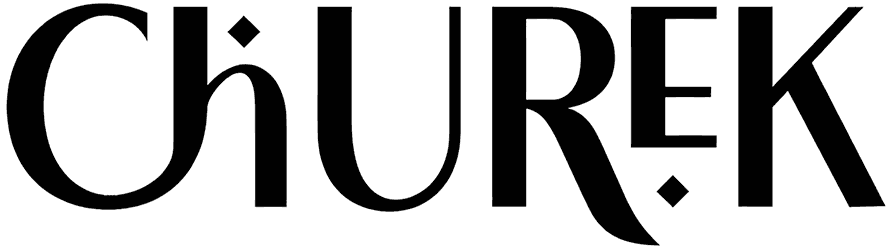
Churek Font
Churek font has that sweet bakery-counter personality where the letters feel soft, rounded, and ready to sit next to something warm. Its playful display style gives headlines a friendly, handmade mood, perfect when a design needs to look tasty without becoming too chaotic. You get enough charm to make people smile, but still enough structure to keep the layout clean and readable.
Use Churek font for pastry packaging, café menus, snack labels, kids’ food promos, party flyers, sticker designs, or cheerful social posts. Pair this ligature font with creamy colors, chocolate browns, paper textures, and chunky shadows, and the whole design starts feeling freshly baked.